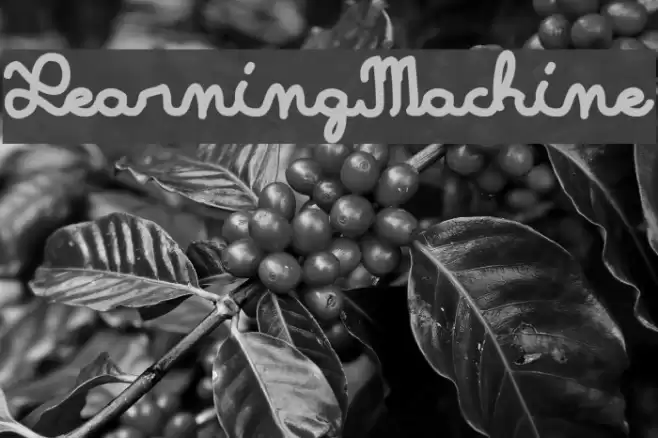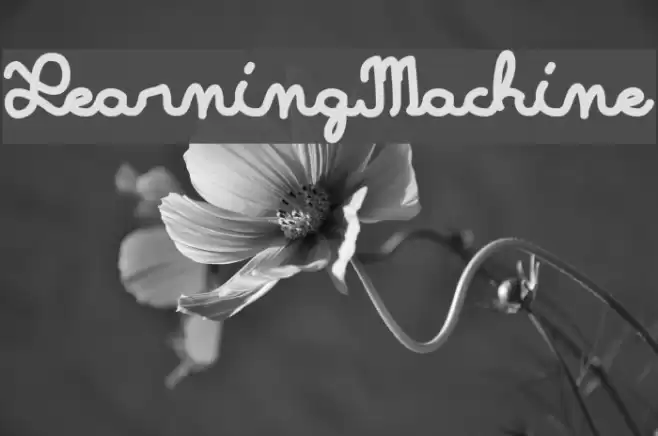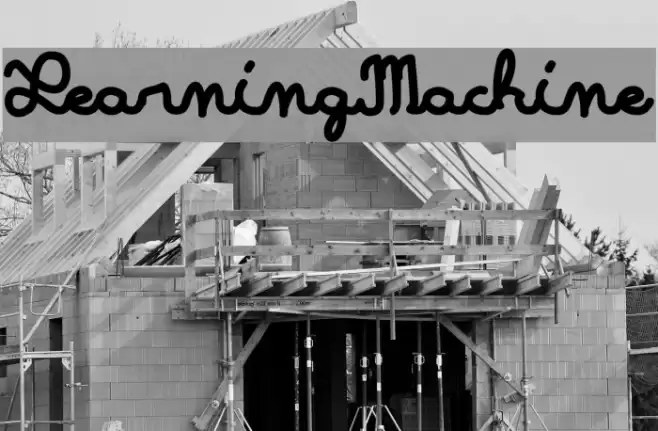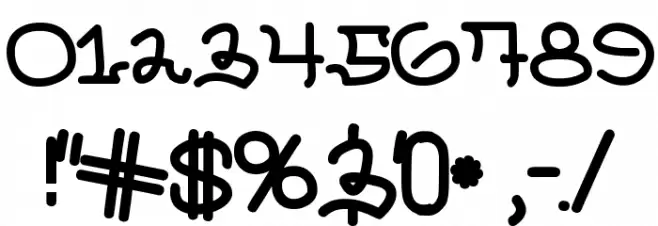
LearningMachine Font
LearningMachine Description
This font features a playful and bold script style with a handwritten feel. The characters are interconnected, creating a fluid and continuous flow. The uppercase letters have a whimsical and artistic flair, while the lowercase letters maintain a consistent and smooth appearance. Numbers and special characters are designed with the same playful and bold characteristics, making them stand out. The overall design is dynamic and expressive, suitable for projects that require a personal and creative touch.
A bold, playful script font with a handwritten style from Uncategorized fonts.
- Proposed Projects: Ideal for greeting cards, invitations, playful branding, and creative posters.
- Character Spacing: Tight
- Use Case: Logos, Headlines, Creative projects